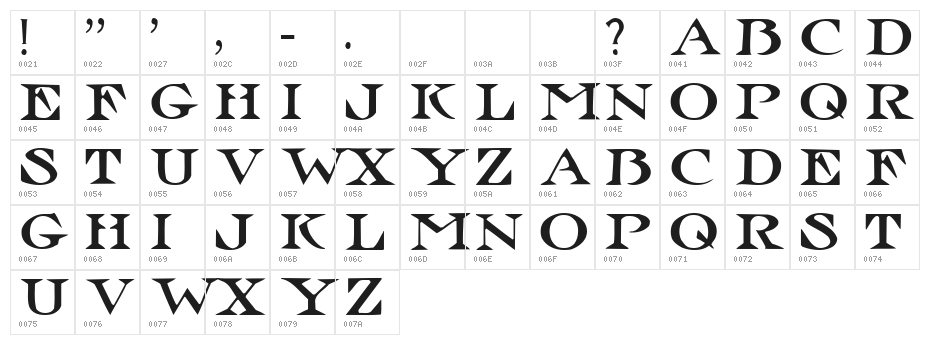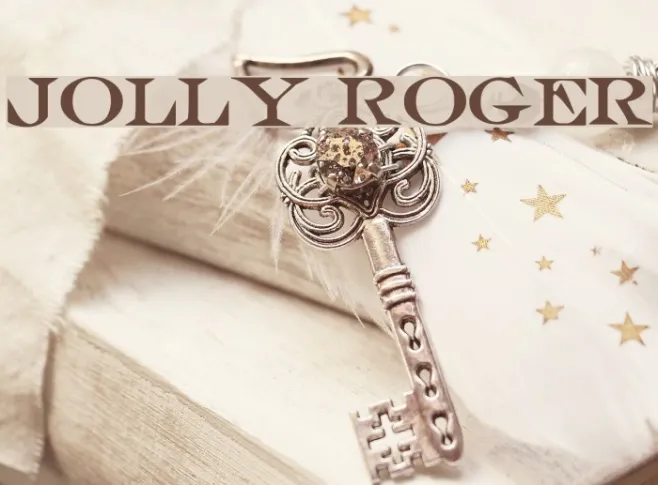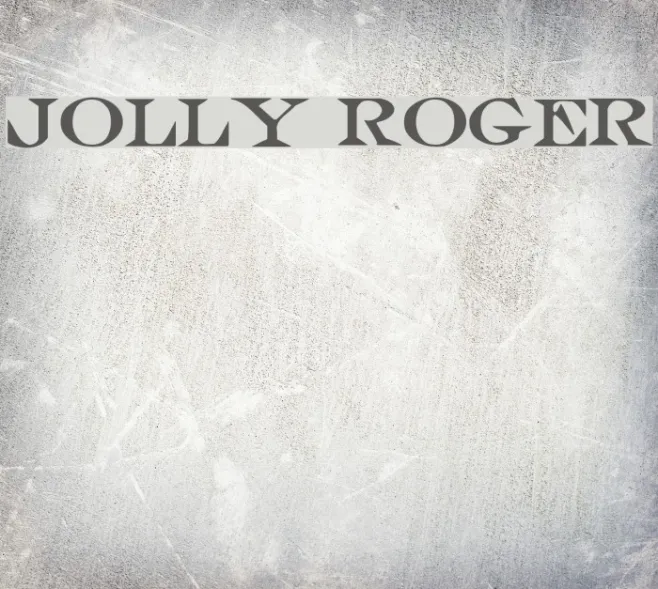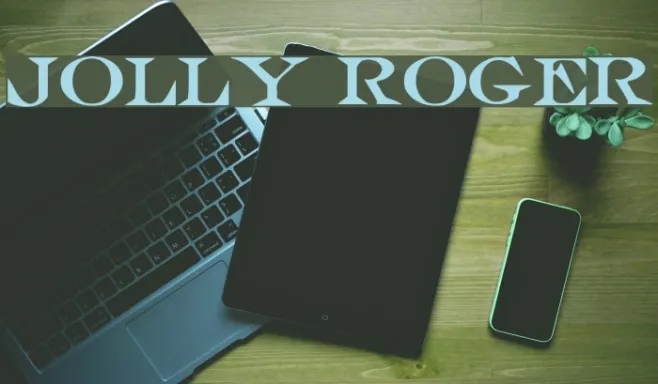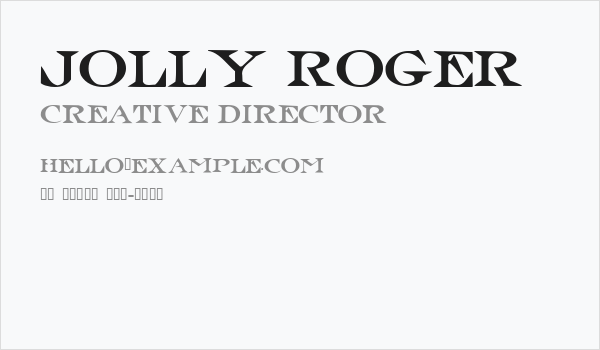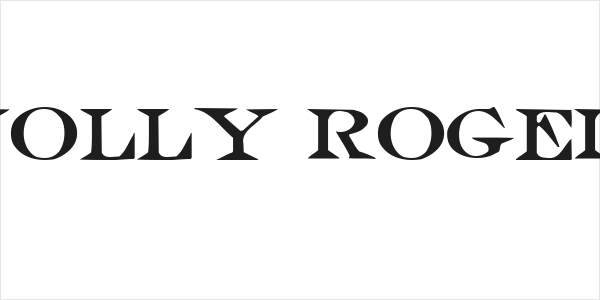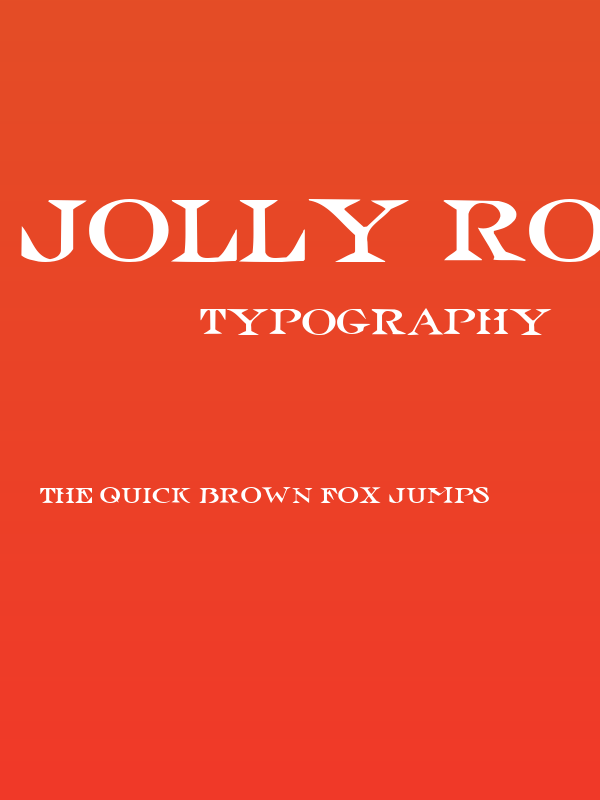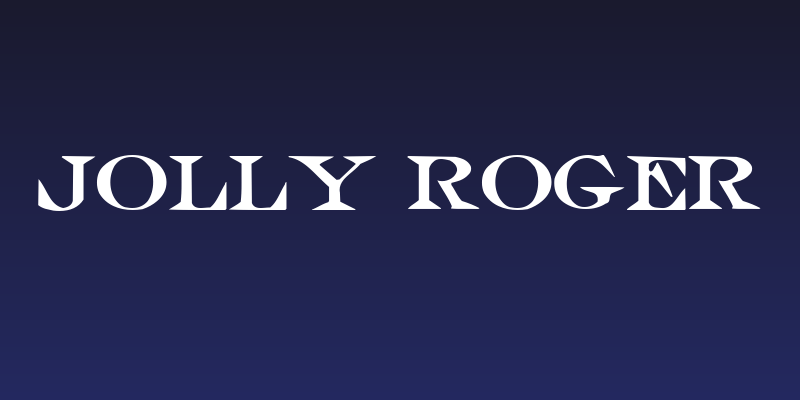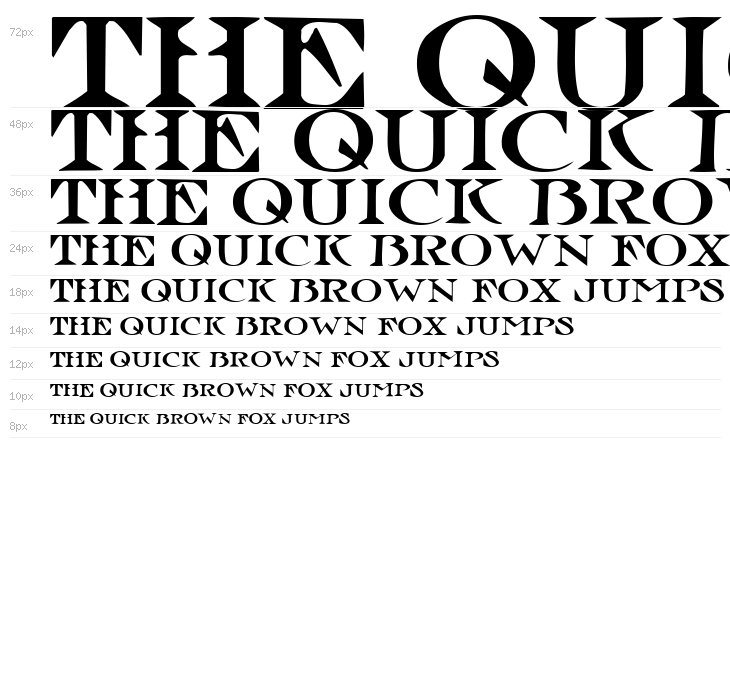
Jolly Roger Font
Jolly Roger Description
This font features a bold and striking design with sharp, angular serifs that give it a distinctive and edgy appearance. The characters are well-defined, with a strong presence that commands attention. The uppercase letters are particularly prominent, showcasing a unique blend of traditional serif elements with a modern twist. The overall look is reminiscent of classic pirate or nautical themes, making it ideal for projects that require a touch of adventure or historical flair. The spacing between characters is tight, enhancing the boldness and impact of the text. This font is perfect for creating eye-catching headlines, logos, or any design that seeks to convey a sense of boldness and uniqueness.
| Proposed Projects | Ideal for pirate-themed designs, adventure book covers, historical posters, and bold logos. |